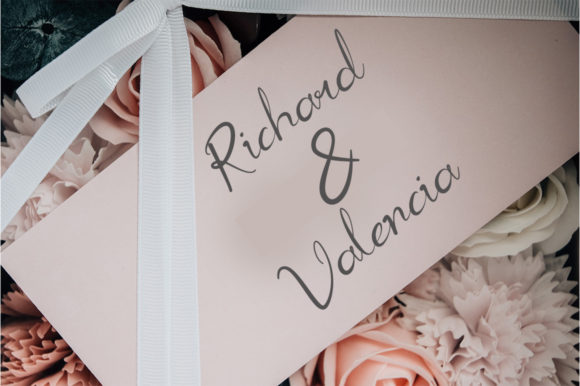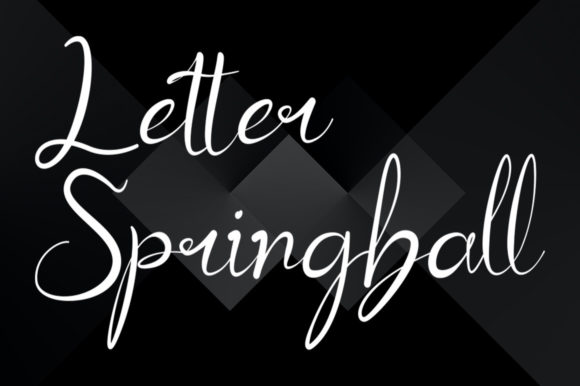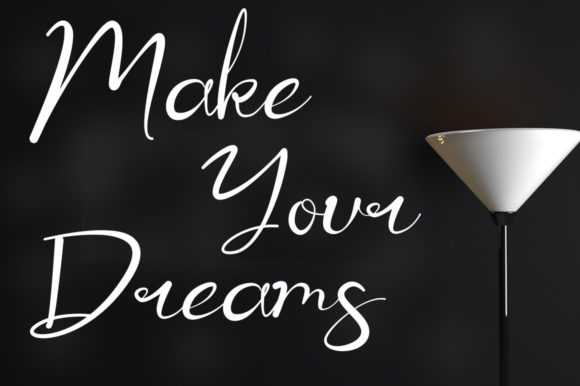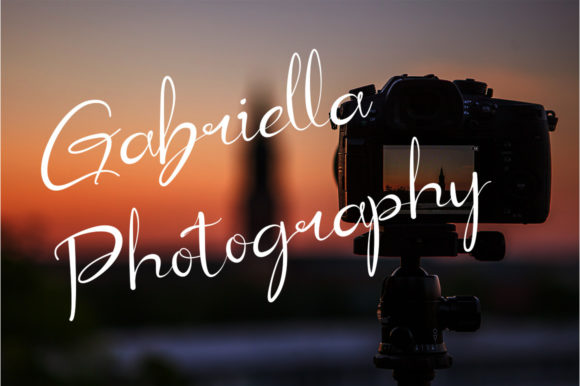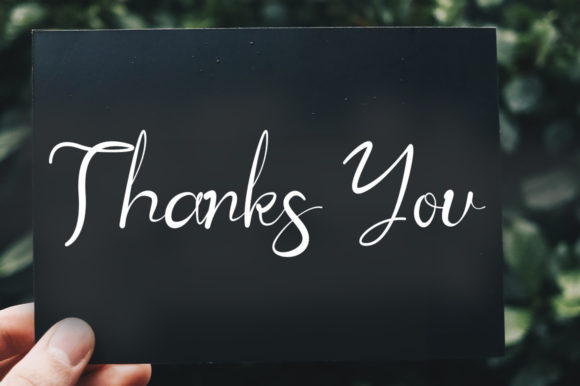
Cabooms Font: Elevate Your Designs with Elegant Handwritten Style
In the world of typography, fonts play a crucial role in conveying the tone and personality of a design. For designers and crafters looking to add a touch of elegance and sophistication to their projects, Cabooms Font is an excellent choice. This modern handwritten font boasts elegant characteristics that make it perfect for a wide range of applications, from wedding invitations and thank you cards to logos, business cards, and more.
The Charm of Cabooms Font
Cabooms Font is a beautifully crafted handwritten font that exudes a sense of refinement and luxury. Its elegant strokes and flowing lines create a stunning visual effect that is sure to capture the attention of your audience. Whether you’re designing a wedding invitation, a quote, or a greeting card, Cabooms Font adds a touch of sophistication and glamour that elevates your design to the next level.
One of the standout features of Cabooms Font is its versatility. This font is perfect for a wide range of design projects, including:
- Quotes and typographic posters
Wherever you need to add a touch of elegance and sophistication, Cabooms Font is the perfect choice.
Why Choose Cabooms Font?
So, what sets Cabooms Font apart from other fonts? Here are just a few reasons why designers and crafters love this beautiful handwritten font:
- Elegant and sophisticated: Cabooms Font has a refined, luxurious feel that’s perfect for high-end designs.
- Easy to read: Despite its elegant appearance, Cabooms Font is clear and easy to read, making it perfect for body text and captions.
- Highly versatile: As mentioned earlier, Cabooms Font is suitable for a wide range of design projects.
- Unique and distinctive: With its flowing lines and elegant strokes, Cabooms Font is sure to make your designs stand out from the crowd.
Tips for Using Cabooms Font
To get the most out of Cabooms Font, here are a few tips to keep in mind:
- Use it sparingly: While Cabooms Font is beautiful, it’s best used sparingly to avoid overwhelming the design. Use it for headings, titles, or key phrases to add emphasis and elegance.
- Pair it with a sans-serif font: For body text and captions, pair Cabooms Font with a clean sans-serif font to create a beautiful contrast.
- Experiment with colors: Cabooms Font looks stunning in a range of colors, from rich jewel tones to soft pastels. Experiment with different colors to find the perfect fit for your design.
Cabooms Font is a stunning modern handwritten font that adds a touch of elegance and sophistication to any design. With its versatile nature, beautiful appearance, and ease of use, it’s perfect for designers and crafters looking to elevate their projects. Whether you’re designing a wedding invitation, a logo, or a greeting card, Cabooms Font is sure to make your design shine.